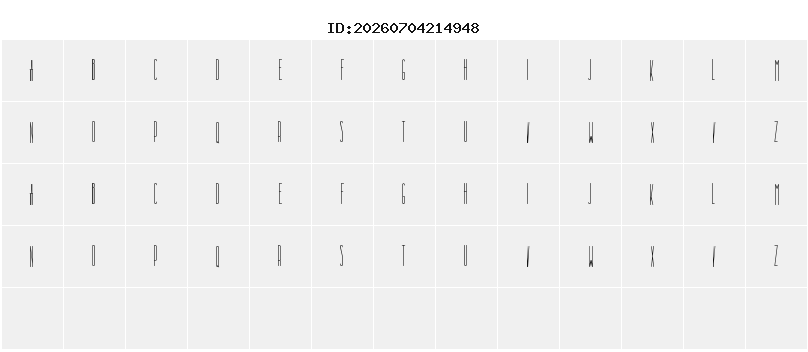
Dooodleista Condensed Preview
• Designer: Filiz Sahin
About Dooodleista Condensed.ttf
Dooodleista Condensed.ttf is a modern, elegant sans-serif font designed for ultimate readability and visual harmony. Perfect for branding, headlines, web design, and print materials.